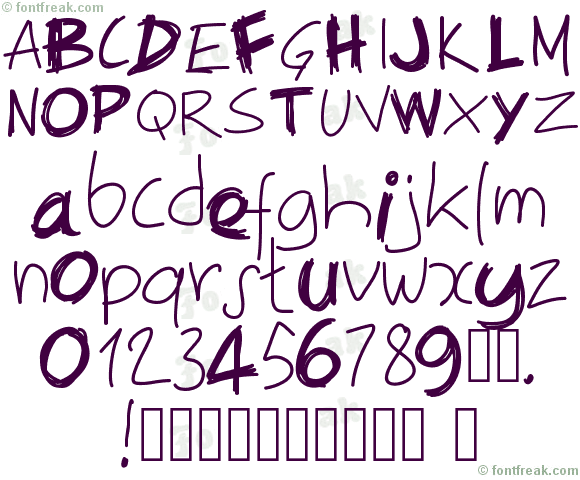
PWIrregular
PWIrregular by Peax Webdesign is a captivating handwritten font that embodies a playful and informal style, making it a versatile choice for various design projects. Characterized by its uneven stroke weights and a casual, organic feel, this font offers a charming visual appeal that stands out in a crowded digital landscape. The unique irregularities in each letter give it a personalized touch, enhancing its character while maintaining readability. With its moderate contrast and open letter spacing, PWIrregular effectively balances style and functionality, making it suitable for both headlines and body text.
This font excels in specific use cases, making it an excellent choice for wedding invitations where a touch of whimsy can elevate the overall aesthetic. Its playful nature also makes it perfect for creative projects like movie posters, where it can convey a sense of fun and originality. Restaurant menus can benefit from the inviting vibe of PWIrregular, enticing customers with its approachable design. Additionally, it can be used in social media graphics, appealing to content creators looking to make their posts stand out.
What sets PWIrregular apart is its ability to blend charm with versatility, making it suitable for a wide range of applications. Whether you're crafting the perfect invitation or designing engaging content for social media, PWIrregular offers a delightful option that elevates your creative projects.